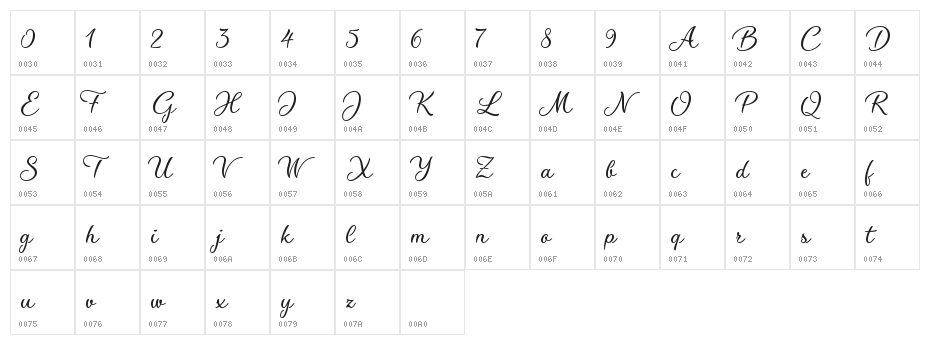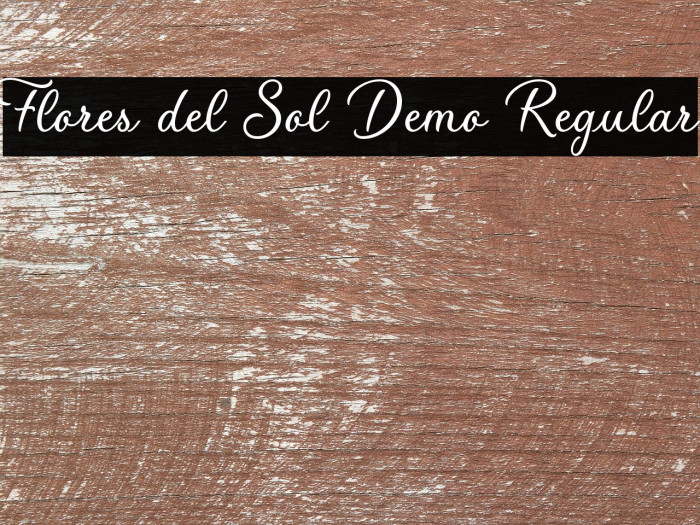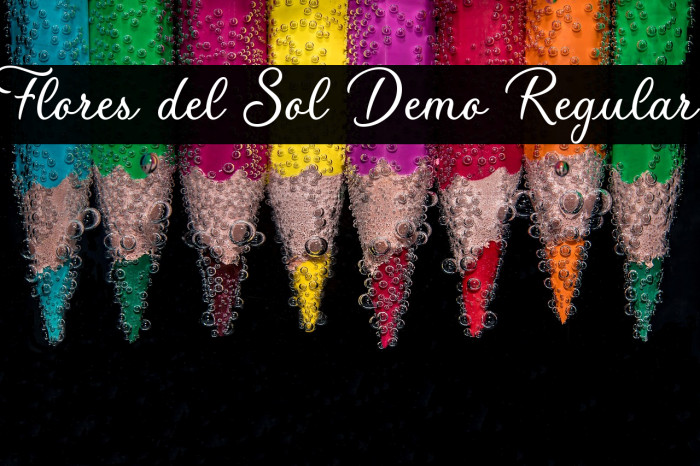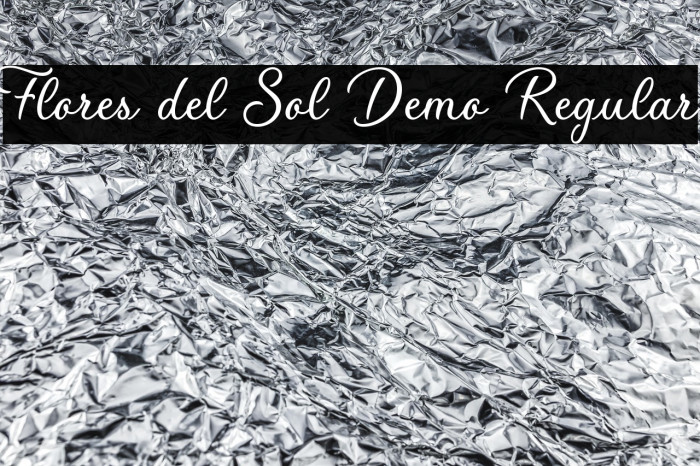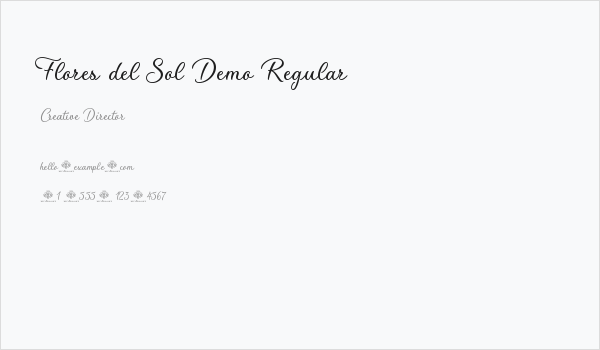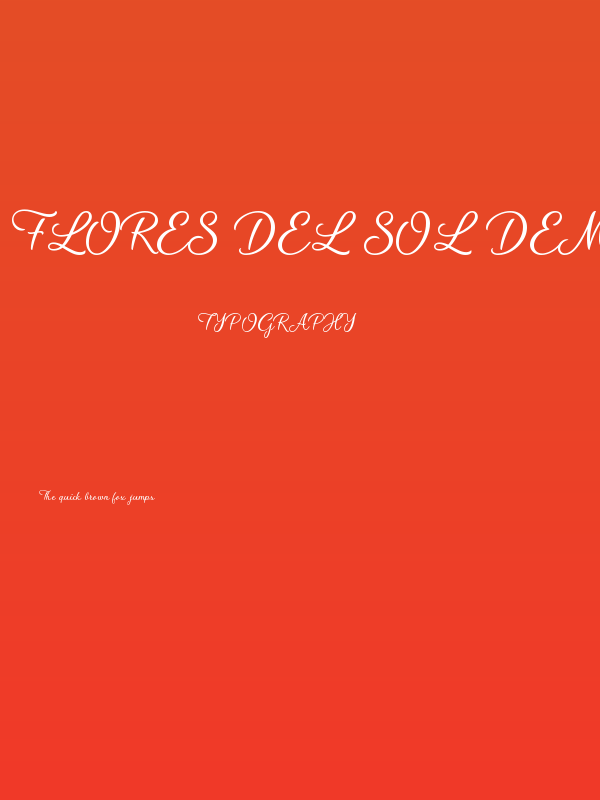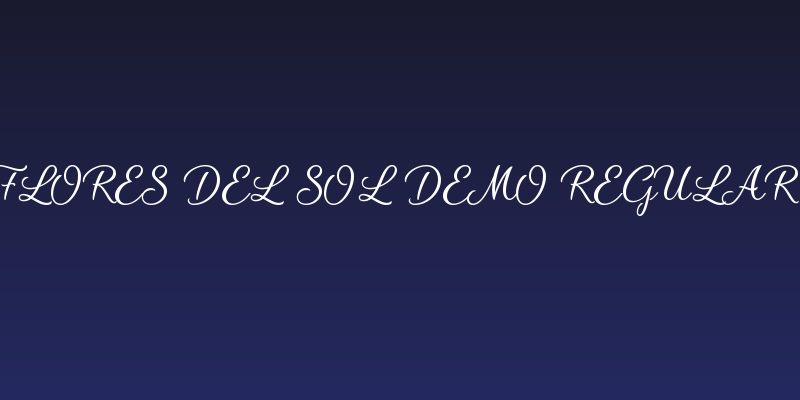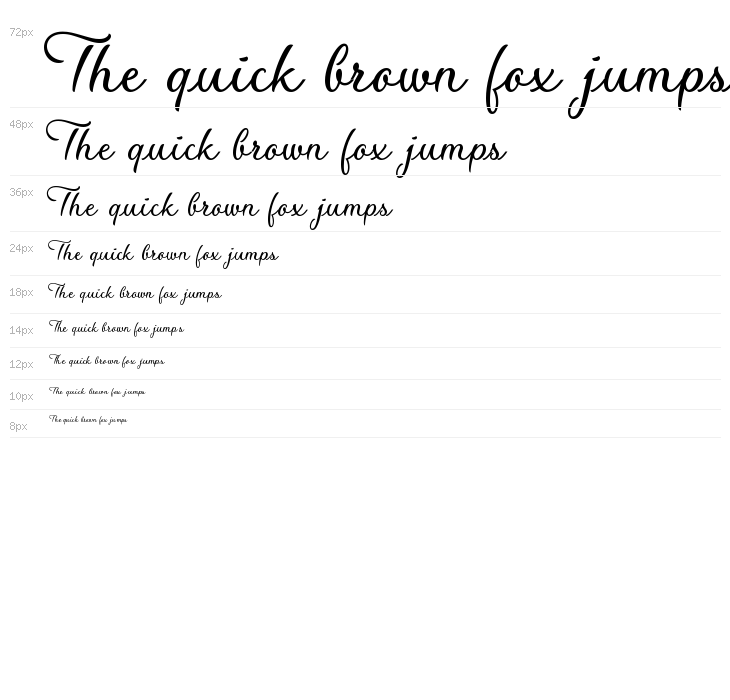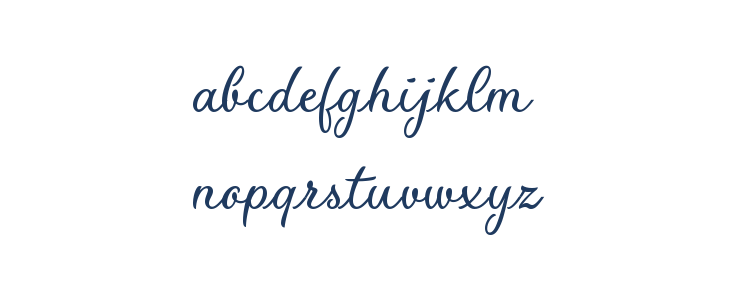
Flores del Sol Demo Regular Font
Flores del Sol Demo Regular Description
This elegant script font features flowing, cursive letters with a classic and sophisticated style. The uppercase characters are gracefully connected, while the lowercase letters maintain a smooth and fluid appearance. The font's design is reminiscent of traditional calligraphy, with each letter exhibiting a distinct flair and personality. The numerals are consistent with the overall style, offering a harmonious blend with the alphabet. This font is perfect for creating a sense of elegance and refinement in any design project.
| Proposed Projects | Ideal for wedding invitations, elegant branding, greeting cards, and decorative signage. |